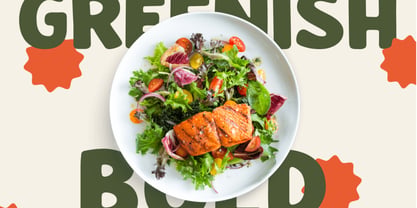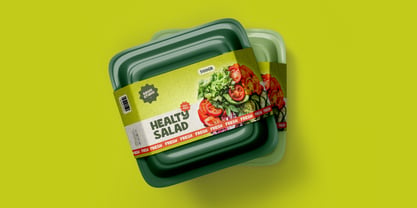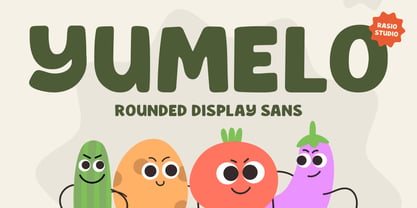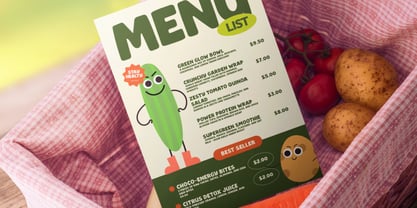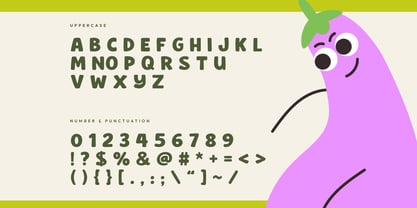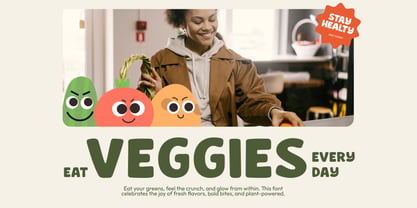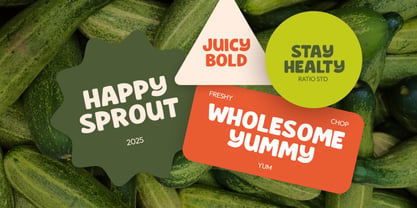
Yumelo
by Rasio Studio
The Yumelo Font Family was designed by Fajar Indra and published by Rasio Studio. Yumelo contains 1 styles. More about this family
Yumelo is a cheerful rounded sans serif display font with a quirky, food-inspired personality. Its thick, soft curves and friendly vibe make it perfect for designs aimed at kids, food brands, or health-conscious audiences. Yumelo balances readability with visual charm, making it ideal for menus, product labels, educational posters, and playful packaging. Its bold look and approachable letterforms help communicate freshness, positivity, and fun especially suited for plant-based and organic product campaigns.